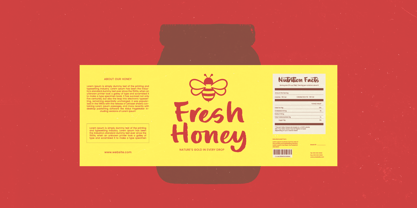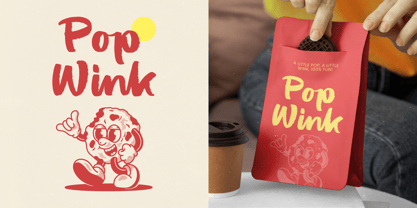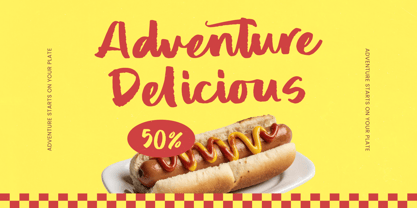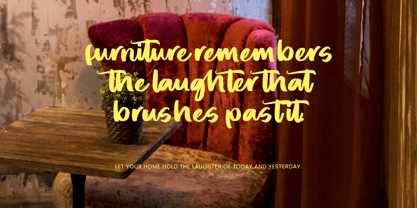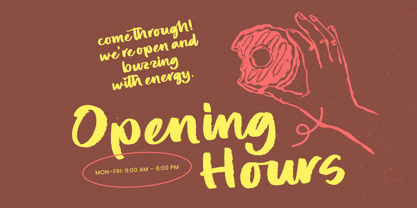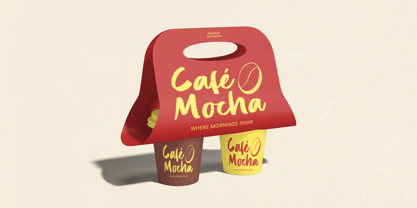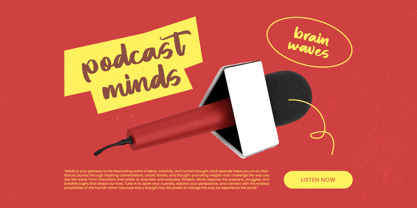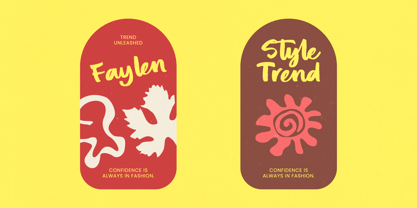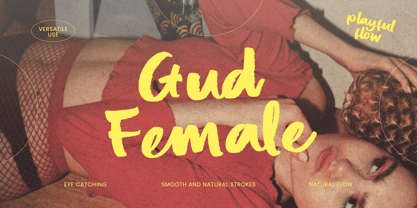
Gud Female
by Letterena Studios
The Gud Female Font Family was designed by Heru Utama Putra and published by Letterena Studios. Gud Female contains 2 styles and family package options. More about this family
Gud Female - Modern Brush Font is perfect for premium packaging, fashion labels, and editorial design. Whether you are crafting social media content, magazine headlines, or custom apparel, its dynamic movement ensures your message resonates with a sophisticated demographic looking for style and substance.
Transform your design workflow with a typeface that merges artistic expression with commercial functionality. Gud Female - Modern Brush Font is not just a font; it is a design statement that empowers creative directors to push creative boundaries. By choosing Gud Female - Modern Brush Font, you are investing in a versatile asset that guarantees a professional finish for trend-setting layouts, lifestyle photography overlays, and high-end advertising campaigns.
Gud Female